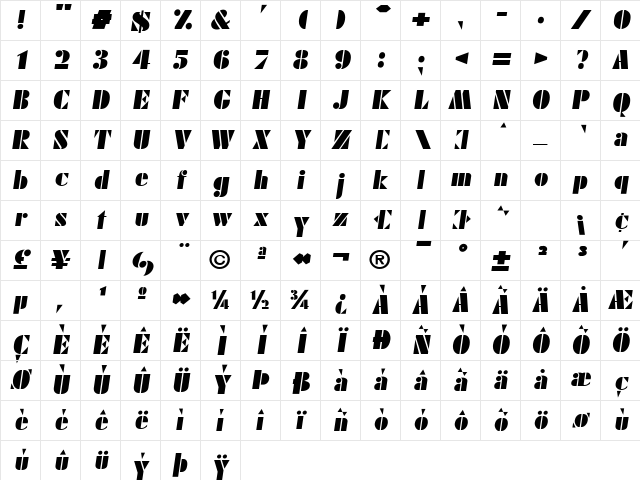
FutureBlack Oblique
Design Context for FutureBlack
FutureBlack has a distinctly futuristic character, with geometric precision and clean angles that feel at home in technology, gaming, and sci-fi contexts. The slanted form adds forward momentum and visual energy.